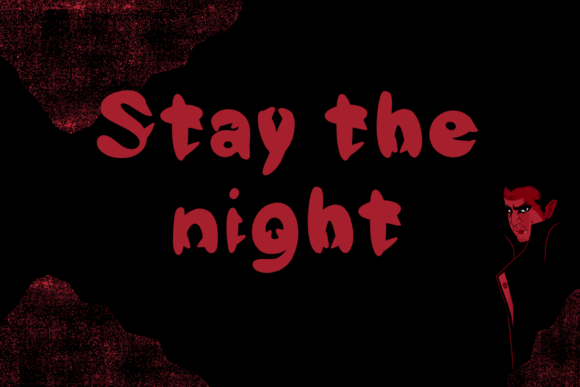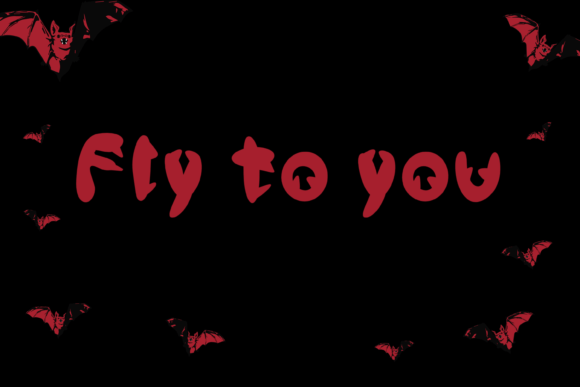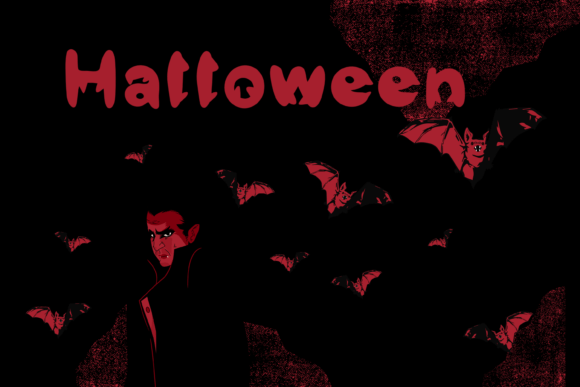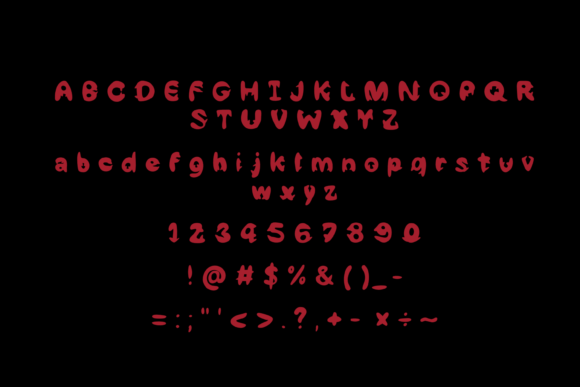
Dracula Font: The Ultimate Display Font for Spooky Projects
Are you looking for a font that captures the essence of horror and the supernatural? Look no further than the Dracula font, a display font that is perfect for projects related to Dracula, Halloween, and horror. With its bold and eerie design, this font is sure to make a statement on your cards, flyers, banners, book titles, social media, and more.
What is Dracula Font?
Dracula font is a typeface designed to evoke the feeling of fear and suspense associated with the iconic vampire, Count Dracula. Its unique design features bold, gothic-inspired letters with a distressed or worn look, giving it a creepy and haunting appearance. The font is perfect for designers and crafters who want to add a touch of horror and mystery to their projects.
Uses of Dracula Font
Dracula font is a versatile display font that can be used in a variety of projects, including:
- Halloween and Horror-themed designs: Use Dracula font to create spooky invitations, flyers, and posters for Halloween parties or horror-themed events.
- Book titles and covers: Add a touch of horror and suspense to your book titles and covers with Dracula font, perfect for authors of horror and supernatural fiction.
- Social media graphics: Use Dracula font to create eye-catching social media graphics, such as Facebook posts, Instagram stories, and Twitter headers, that are sure to grab attention.
- Cards and invitations: Create spooky and unique cards and invitations for Halloween, birthdays, or other special occasions.
- Banners and signs: Use Dracula font to create bold and eye-catching banners and signs for Halloween parties, horror-themed events, or haunted houses.
Why Choose Dracula Font?
There are many reasons why Dracula font is the perfect choice for your spooky projects:
- Unique design: Dracula font has a unique and distinctive design that is sure to stand out from other fonts.
- Eerie and creepy: The font’s distressed or worn look gives it an eerie and creepy appearance that is perfect for horror and supernatural-themed projects.
- Versatile: Dracula font can be used in a variety of projects, from digital designs to print materials.
Tips for Using Dracula Font
Here are some tips for using Dracula font in your projects:
- Pair with other fonts: Pair Dracula font with other fonts, such as a sans-serif font, to create a bold and eye-catching design.
- Use in combination with images: Use Dracula font in combination with images, such as spooky illustrations or horror-themed photographs, to create a cohesive and effective design.
- Experiment with colors: Experiment with different colors, such as blood red or dark gray, to create a bold and eerie design.
Dracula font is a unique and versatile display font that is perfect for projects related to Dracula, Halloween, and horror. With its bold and eerie design, this font is sure to make a statement on your cards, flyers, banners, book titles, social media, and more. Whether you’re a designer or crafter, Dracula font is a great addition to your font collection.